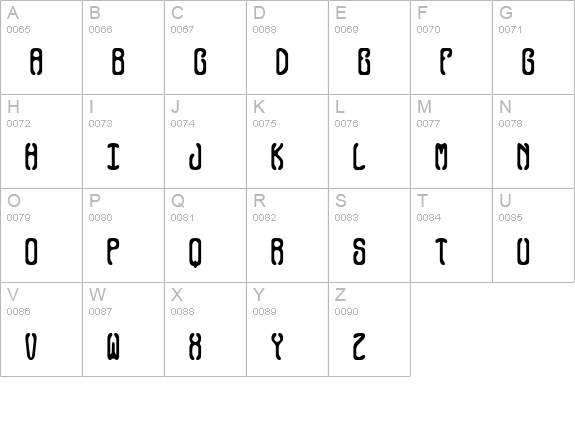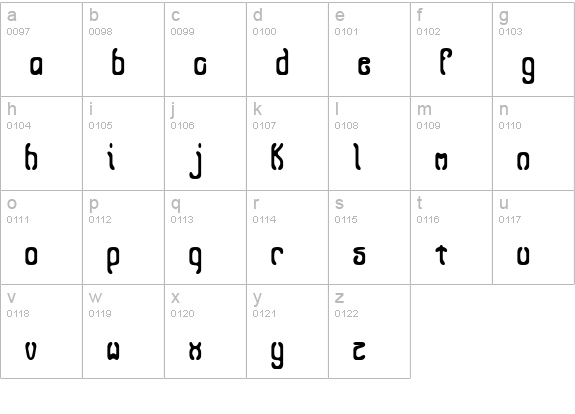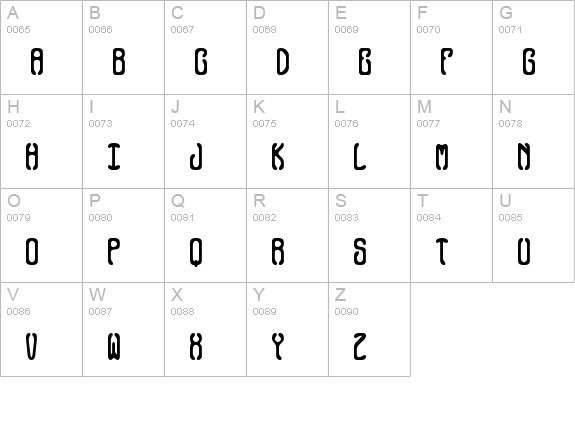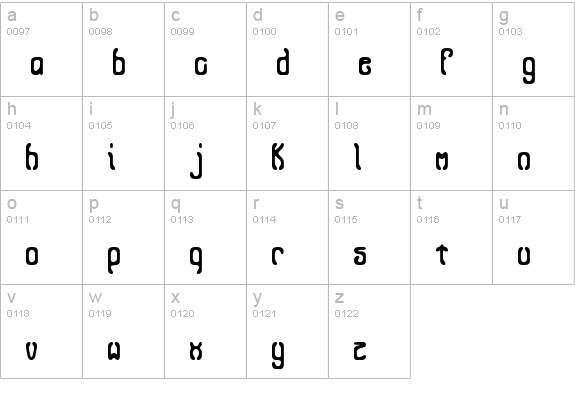
Queasy (BRK) Font Details
Queasy (BRK) font is a uniquely designed typeface that is sure to captivate the attention of anyone who sees it. Its distinctive and eye-catching shape is perfect for adding a touch of personality to any project. With its bold and slightly playful appearance, this font is suitable for a wide range of applications, from logo designs to headlines and everything in between. One of the best things about Queasy (BRK) font is that it is free. Yes, you read that right – this amazing font is freely available to download at FontsMarket.com. You don't have to worry about breaking the bank to add this font to your collection. Whether you're a professional designer or just someone who loves experimenting with different fonts, Queasy (BRK) font is a must-have. The attention to detail in this font is truly remarkable. Each letter has been meticulously crafted to ensure a seamless flow and a visually pleasing aesthetic. The bold lines and unique curves give Queasy (BRK) font a sense of energy and dynamism, making it a perfect choice for projects that need a little extra flair. With its versatility, Queasy (BRK) font can be used in a variety of contexts. It works well in both print and digital media, and its clean and clear legibility makes it suitable for both small and large sizes. Whether you're designing a poster, a website, a magazine layout, or even a social media post, Queasy (BRK) font will undoubtedly make a bold statement. So why wait? Head over to FontsMarket.com and download Queasy (BRK) font today. With its unique design, versatility, and the fact that it's free, this font is a valuable addition to any designer's toolkit. Don't miss out on the opportunity to elevate your designs with this exceptional typeface. Get Queasy (BRK) font now and let your creativity soar.